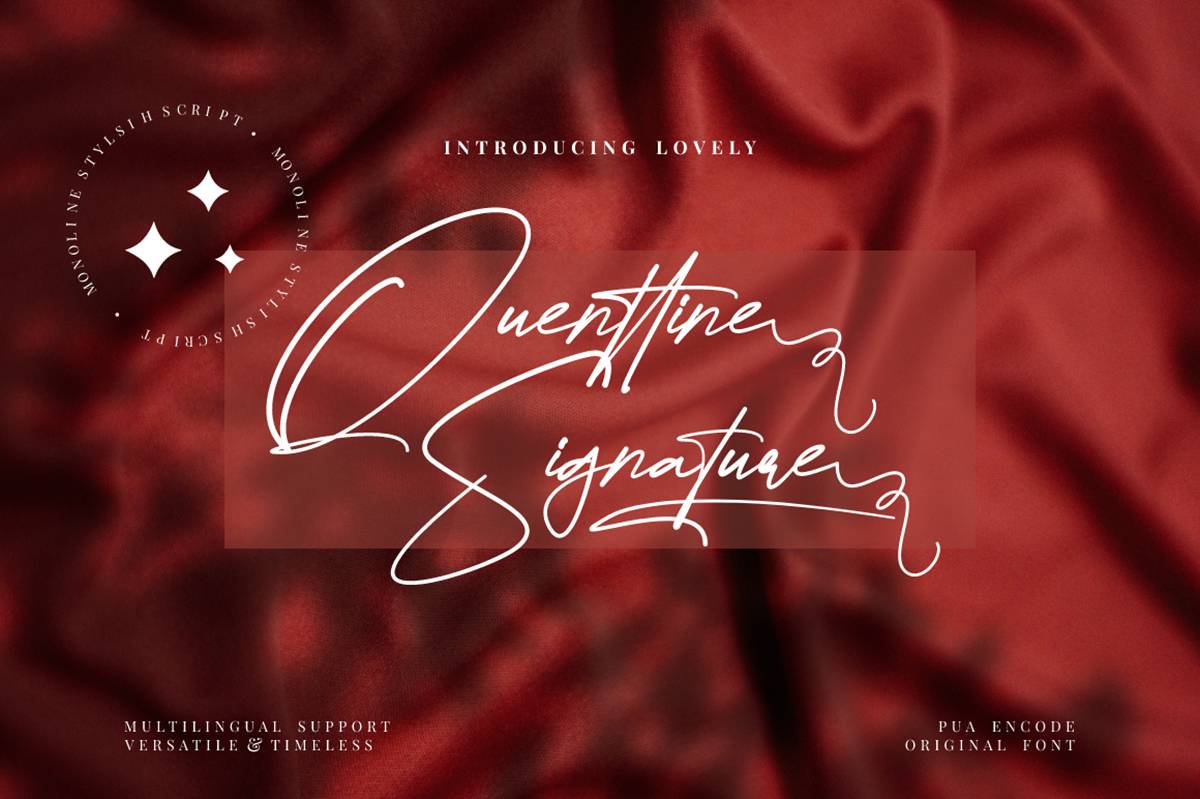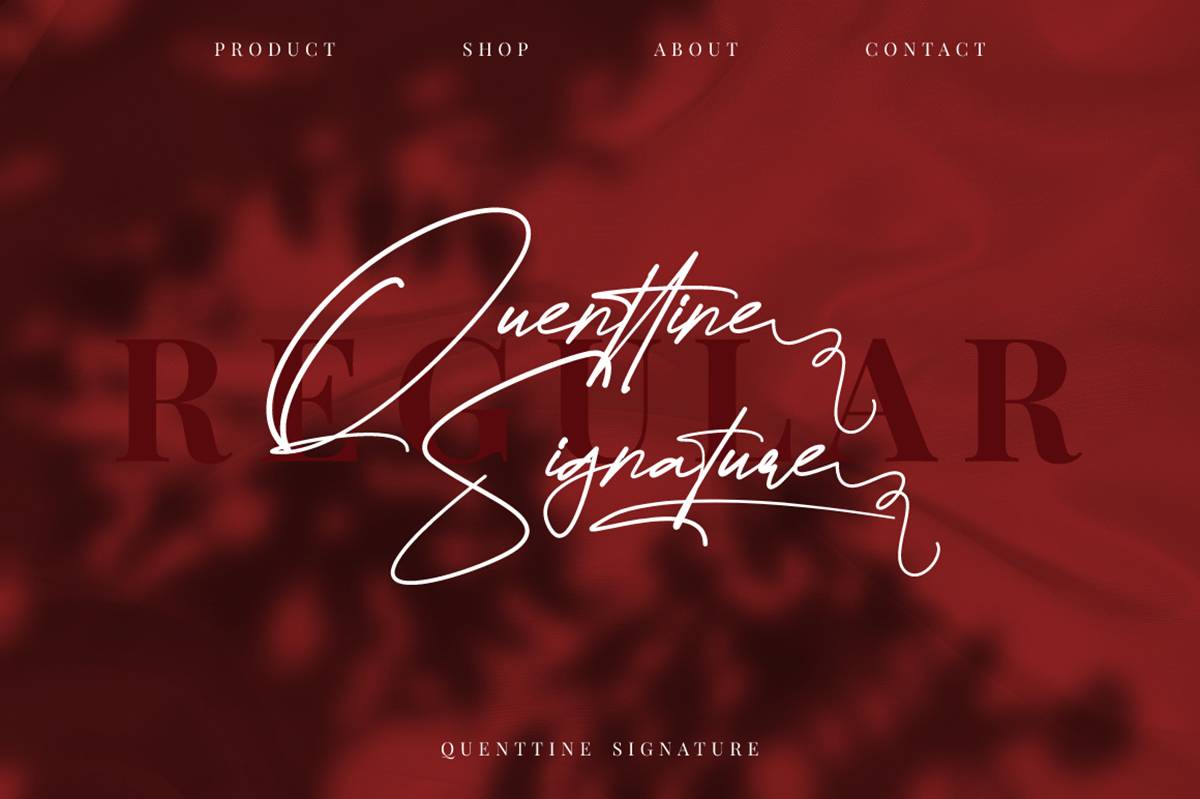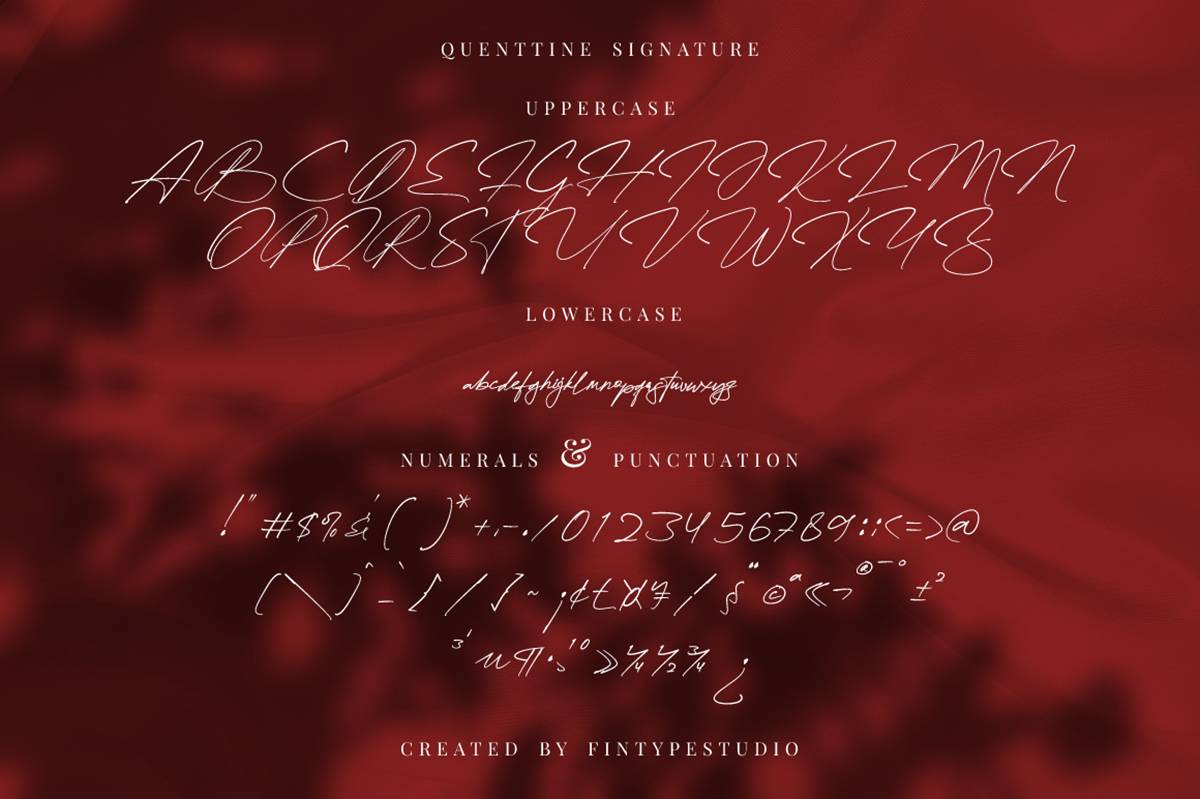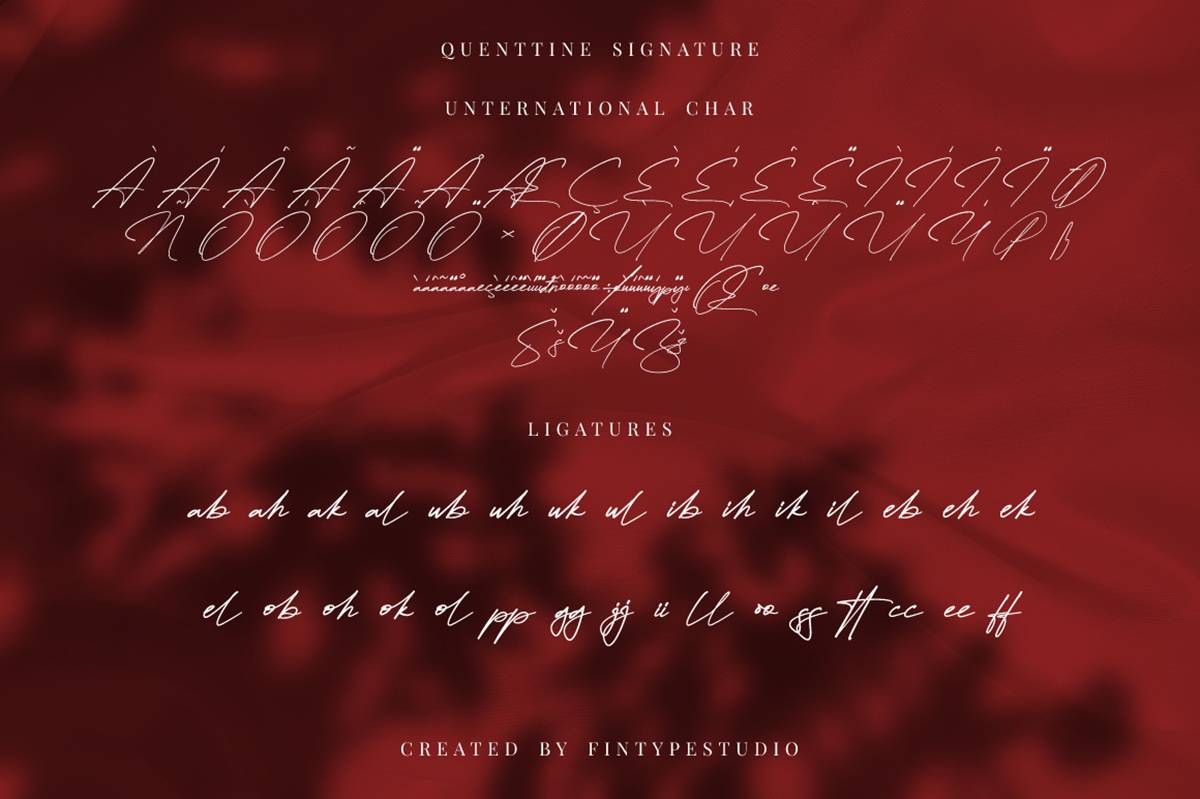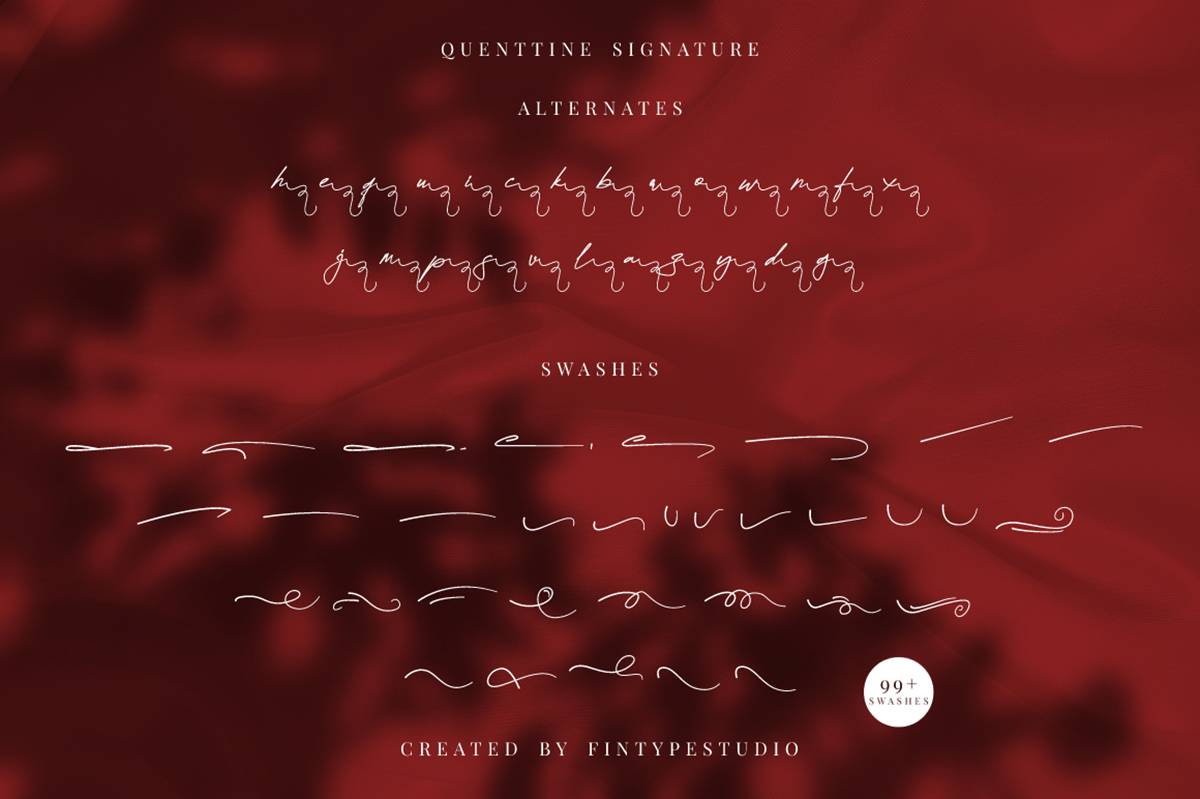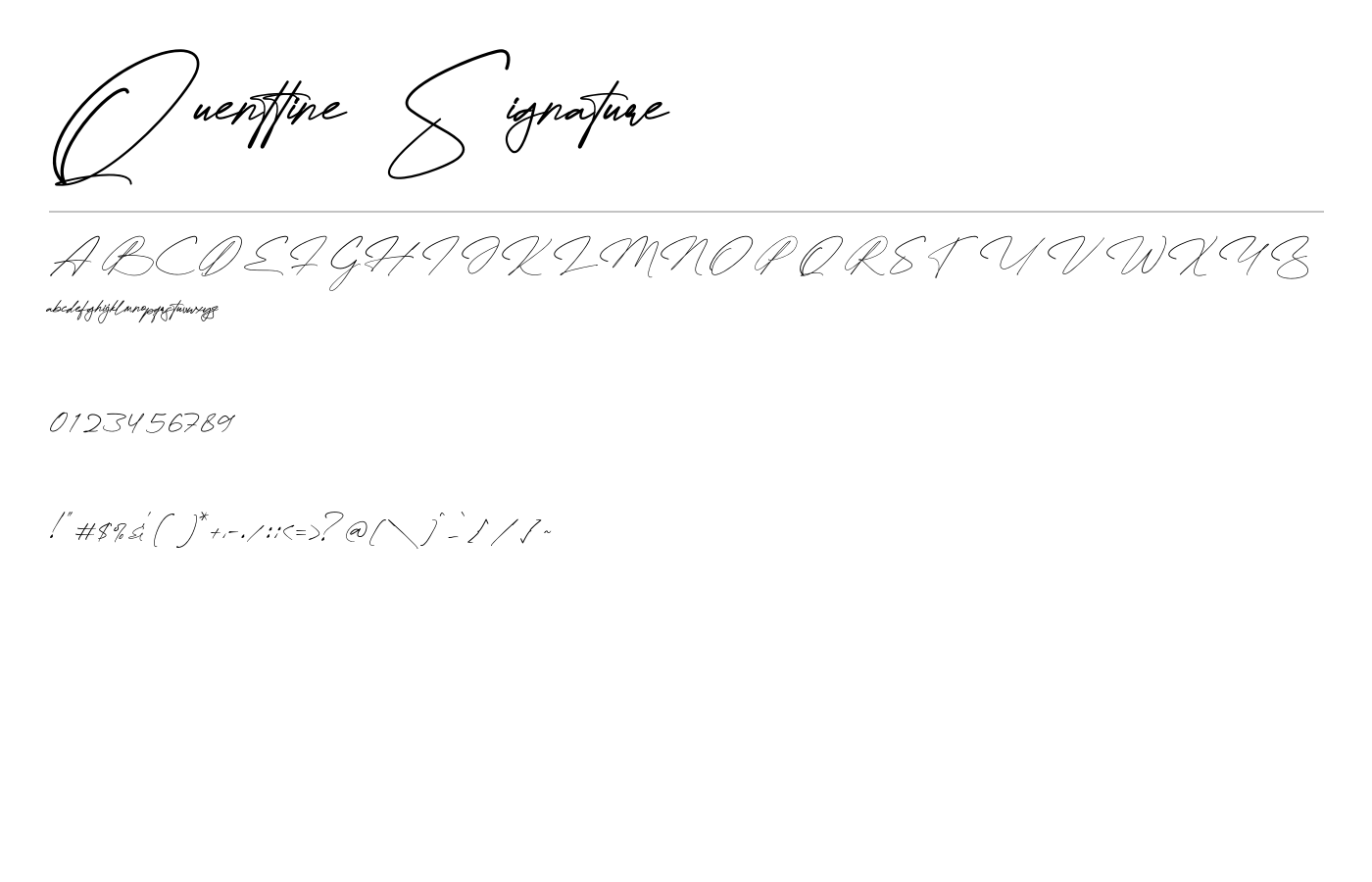
Quenttine Signature Font is an elegant, delicate script typeface that captures the natural flow of handwritten signatures. Its fine, slender strokes and graceful, slightly airy letterforms create a sophisticated and personal feel, making it ideal for branding, invitations, and stylish editorial designs that require a touch of refinement and individuality. This font works beautifully where a modern, chic, and intimate aesthetic is desired.
Quenttine Signature Font
About Quenttine Signature Font
| Font family | Quenttine Signature Font |
| Designer | FinTypeStudio |